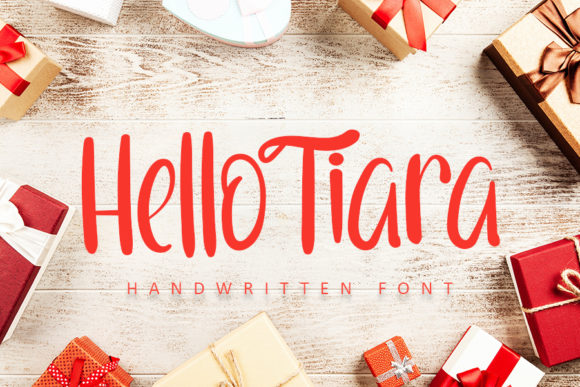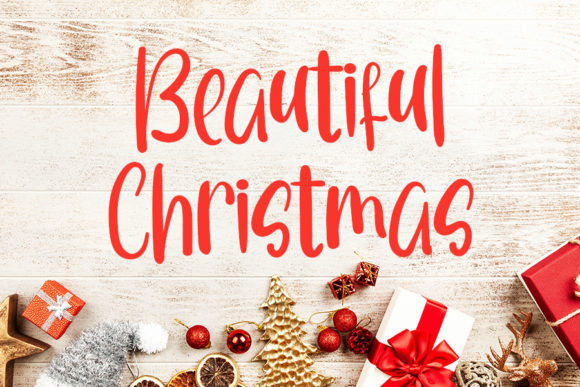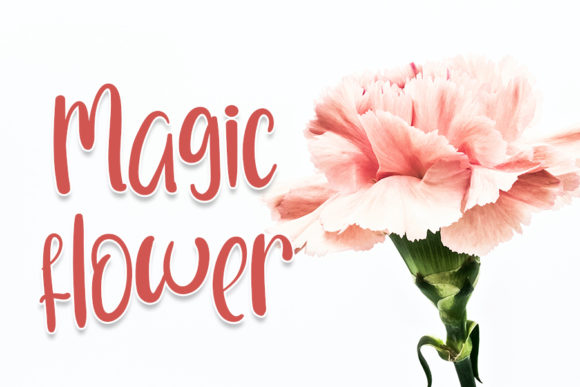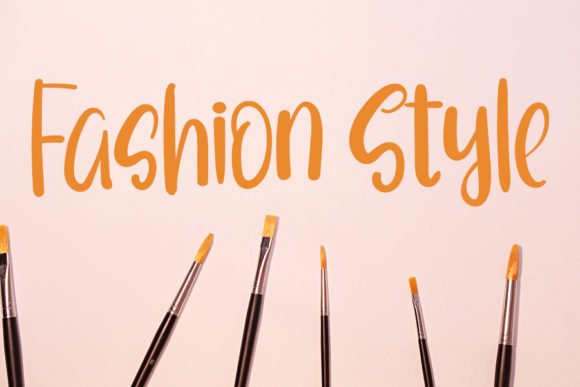
About Hello Tiara Font
Hello Tiara is a flowing and sweet handwritten font. Fall in love with its trendy style and use it to create fun invitations, beautiful stationary art, eye-catching social media posts, and much more!